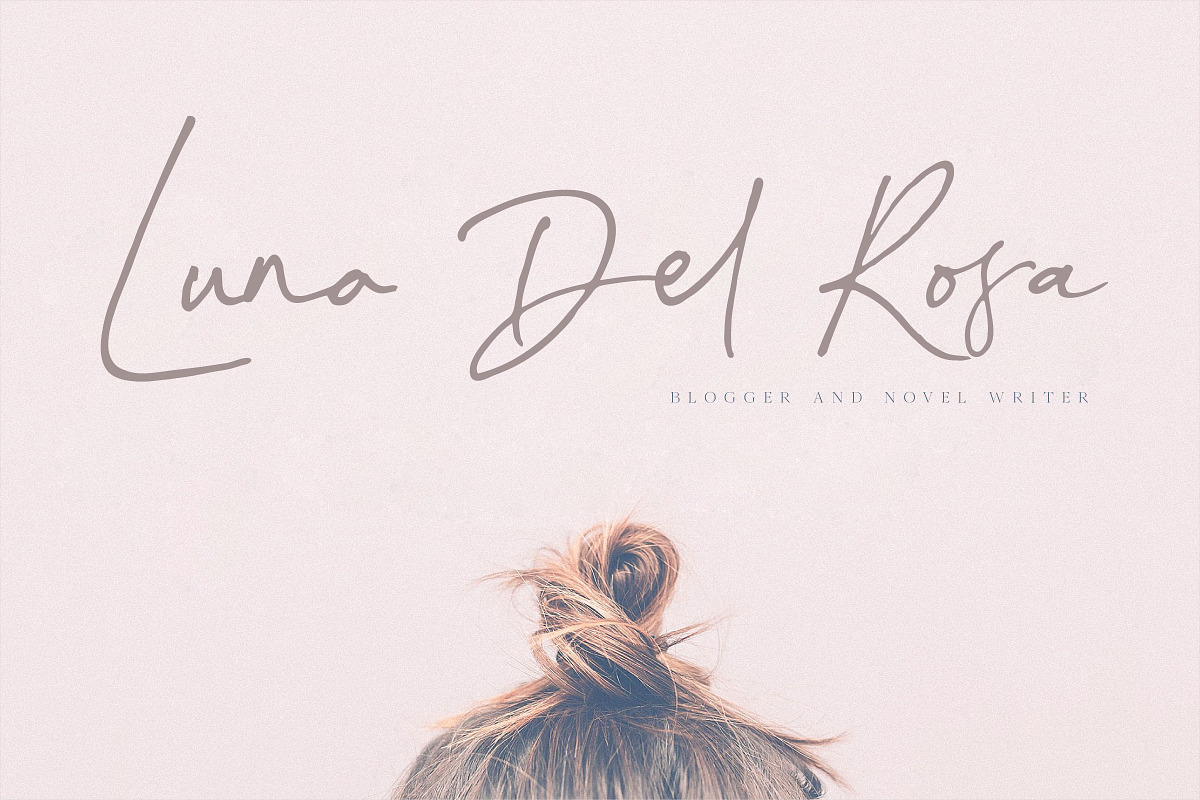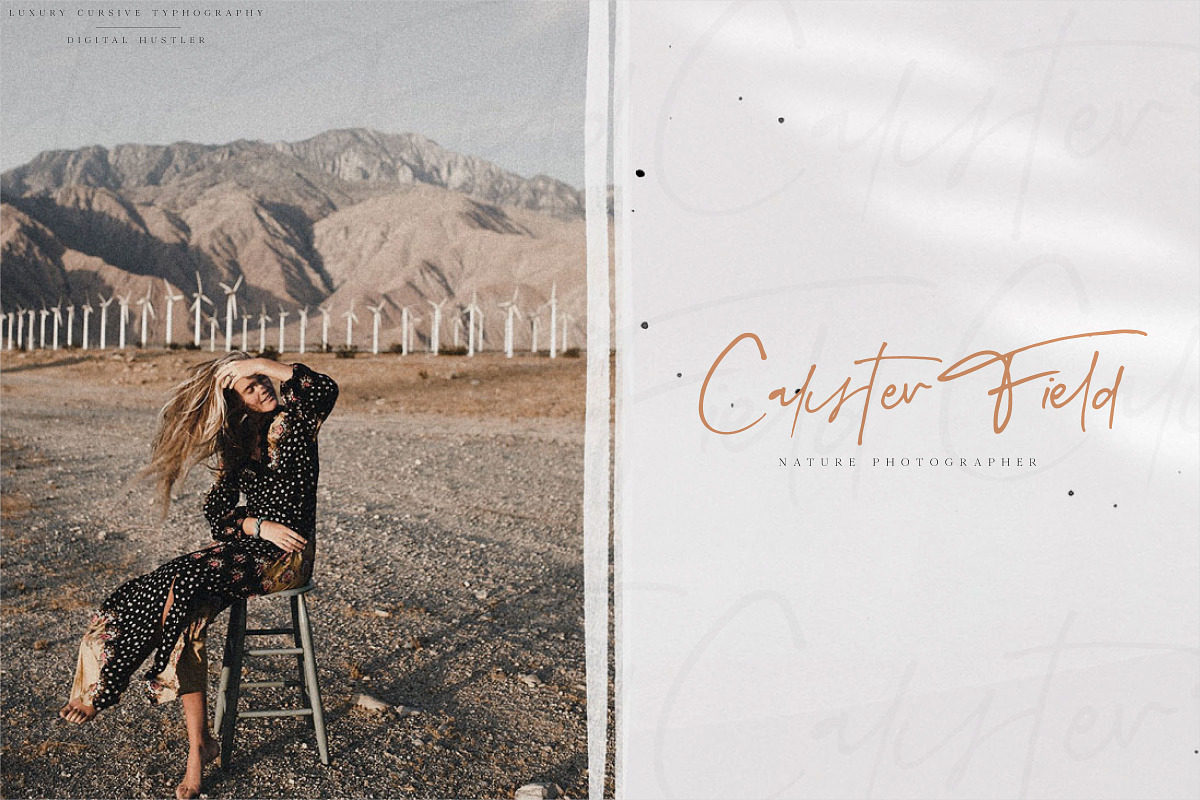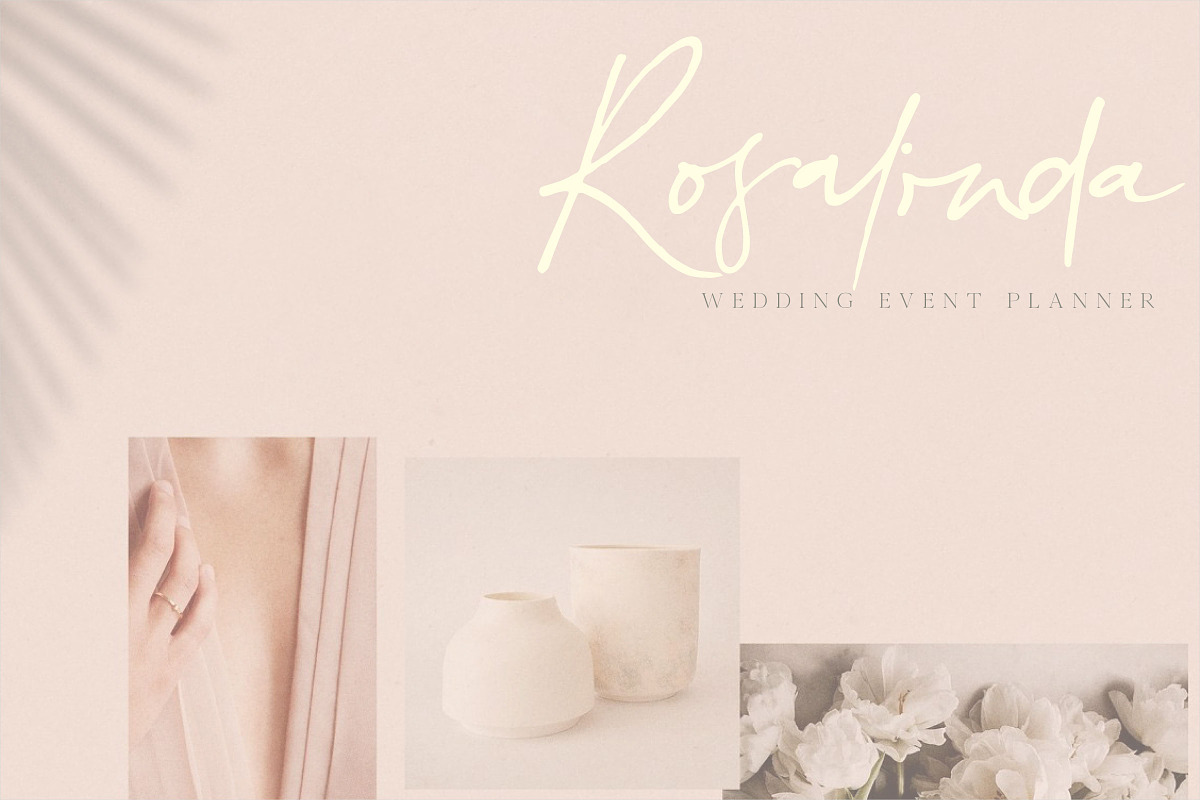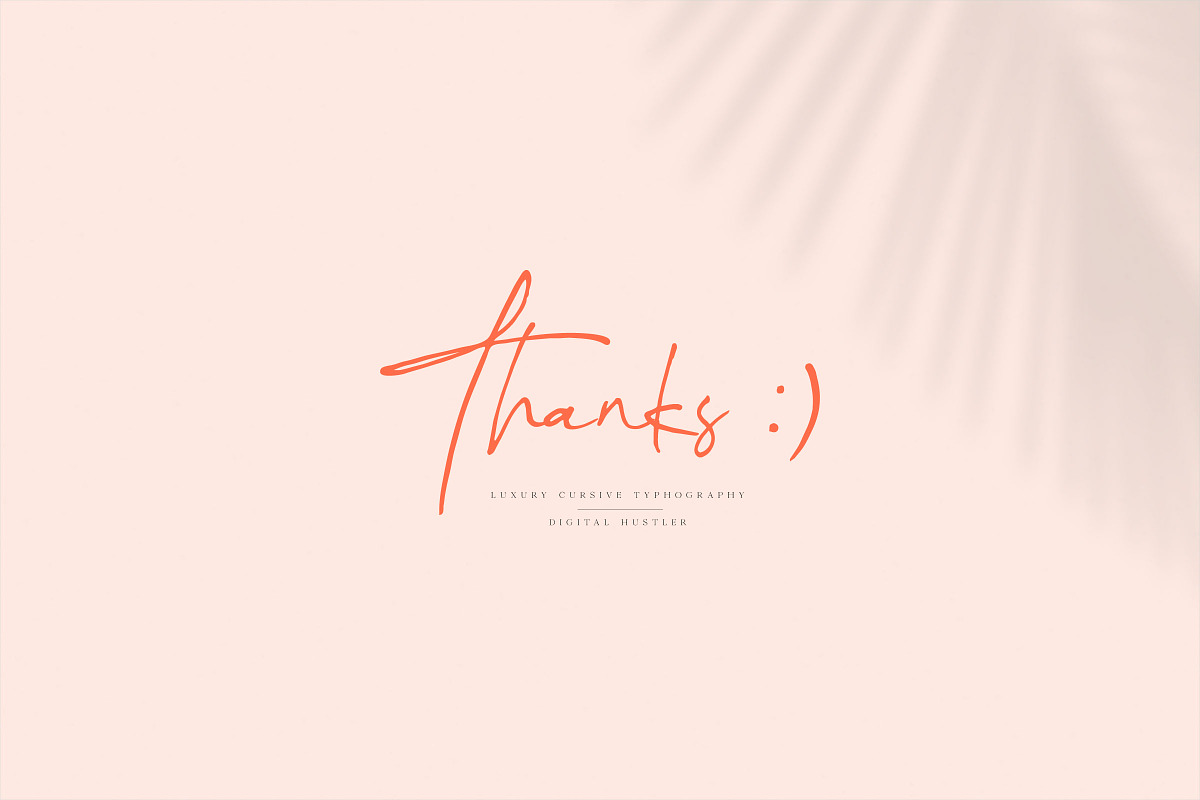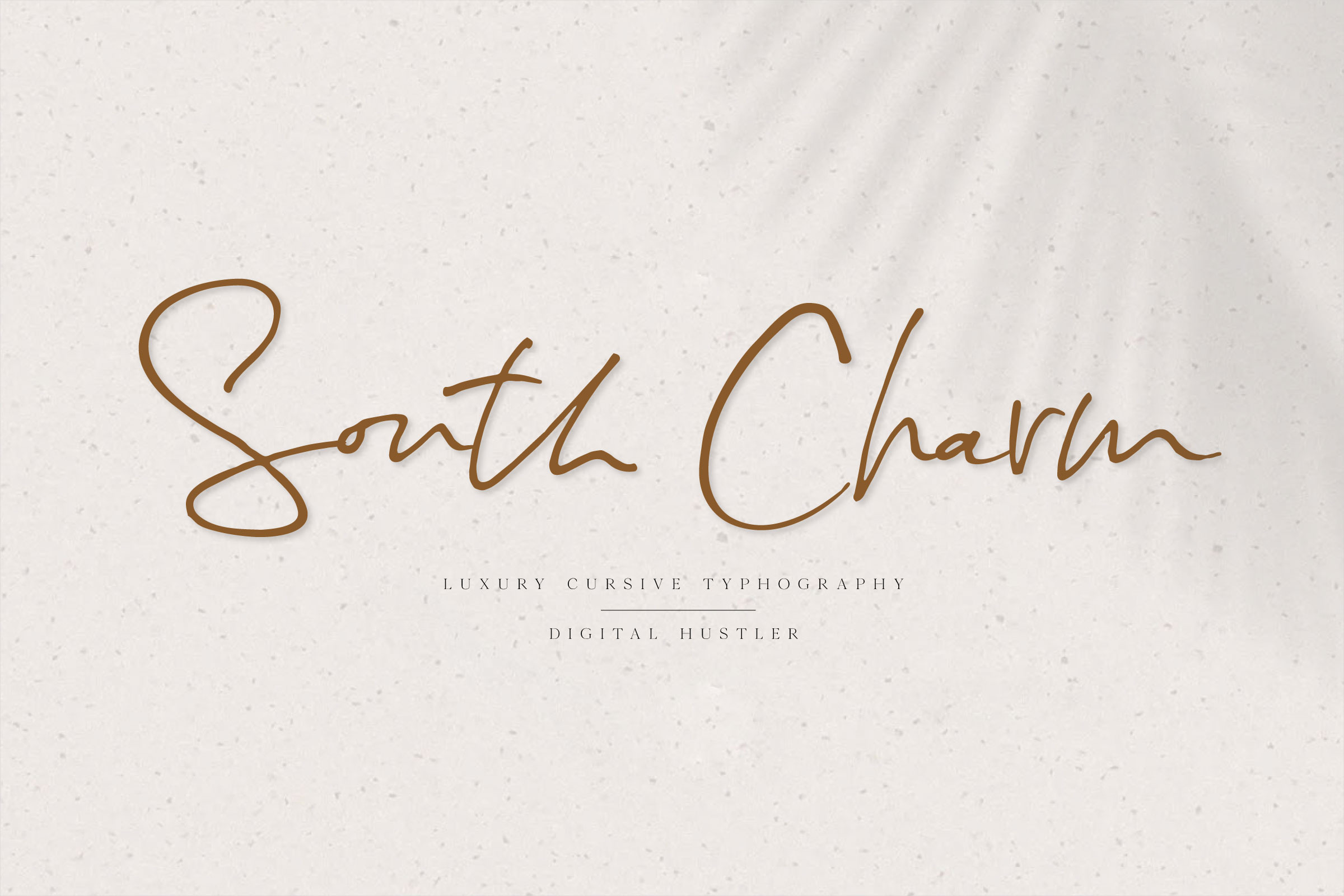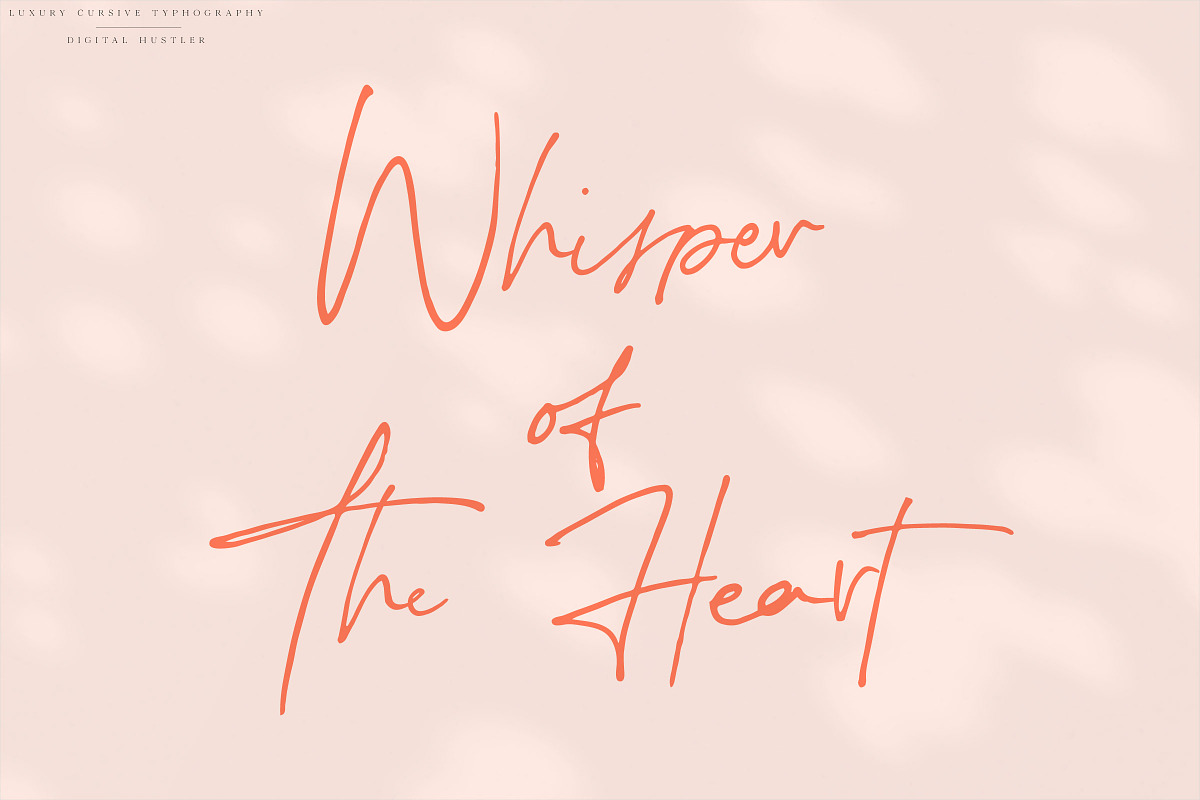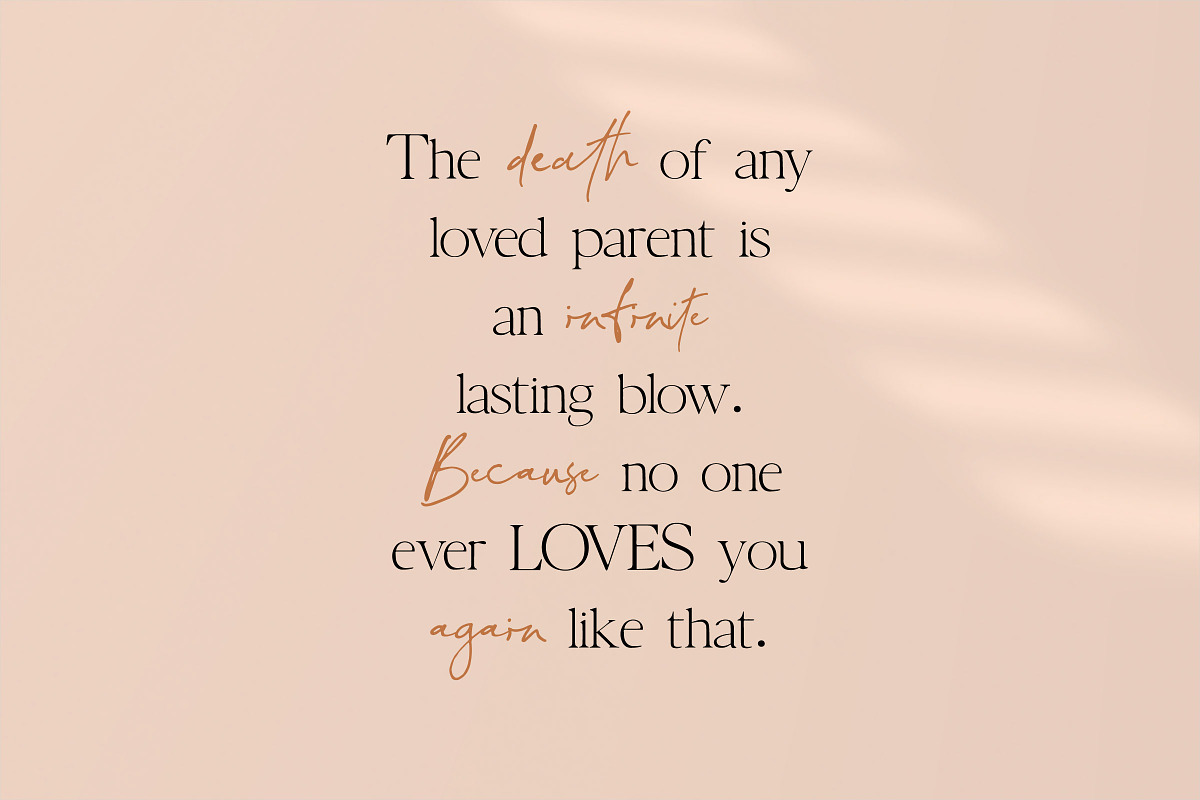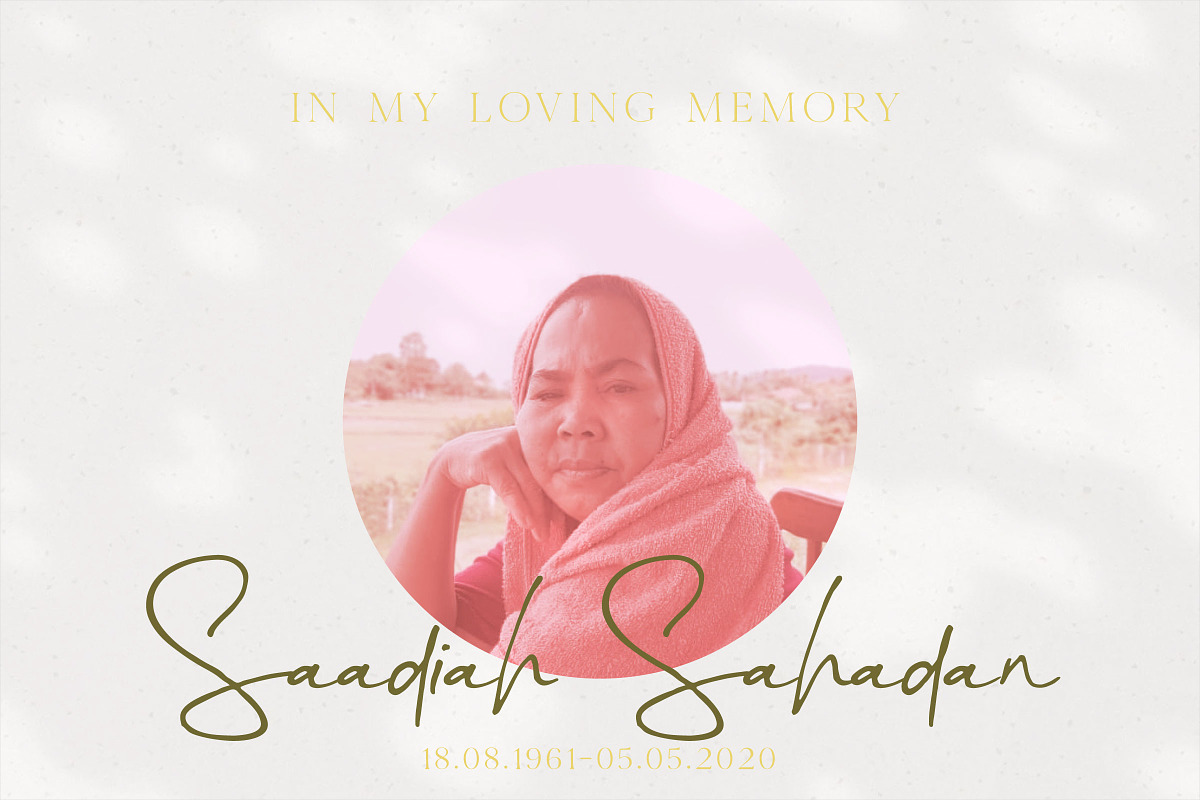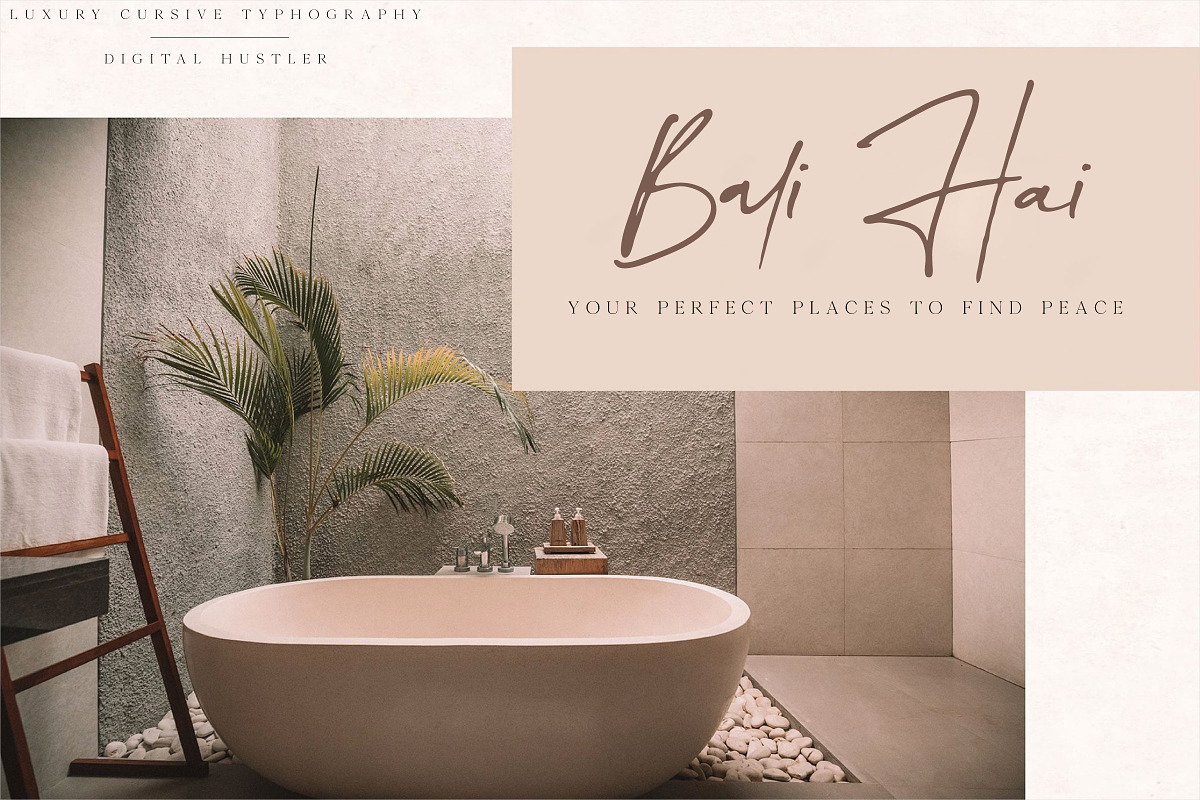
South Charm Font
South Charm is a luxurious cursive script typeface suitable for all kinds of logos and typography projects. Extremely legible, loaded with ligatures and creative capitals, South Charm is a unique and practical addition to your toolbox. You'll love the flowing and elegant nature of this typeface if you are designing wedding invitations, elegant logos, signature branding, and much more.